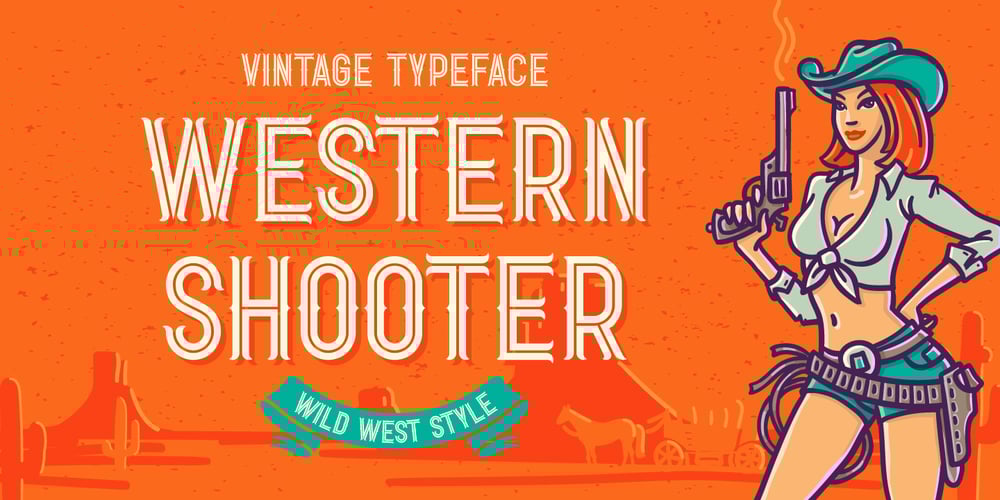
Western Shooter Font Family was designed by Gleb Guralnyk and published by Gleb Guralnyk. Western Shooter contains 1 styles and family package options. Western Shooter a caps-only font in an authentic vintage, Western style. This font includes multi-lingual support as well.